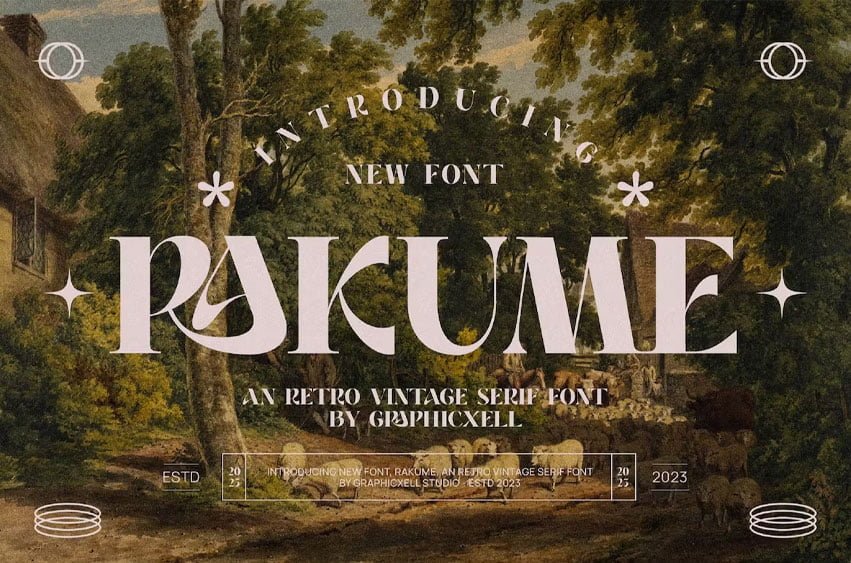
Rakume Font is inspired by the famous minimalist logo perfect for the purposes of designing templates, brochures, videos, advertising branding, logos, invitations, layout design, elegant crafting, beauty design, and more.